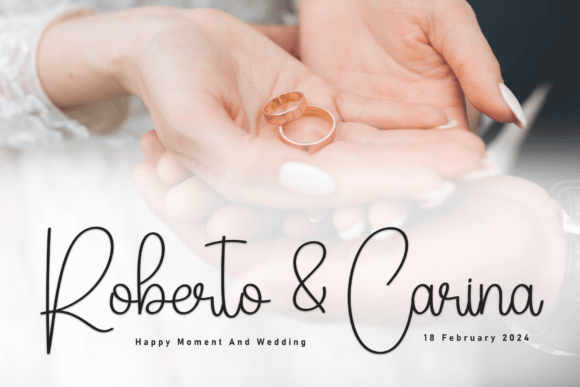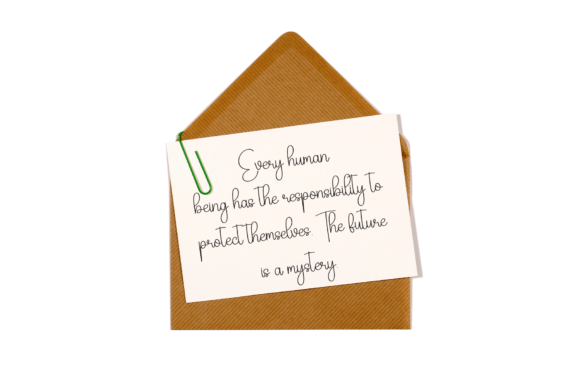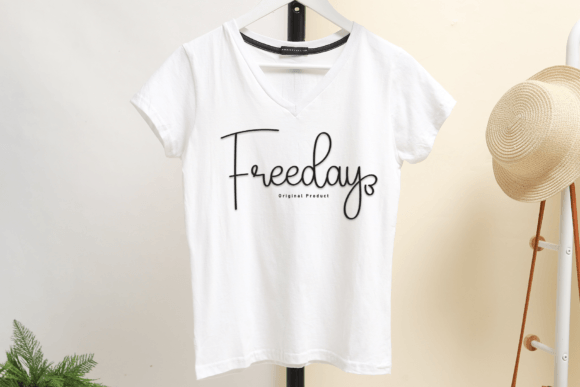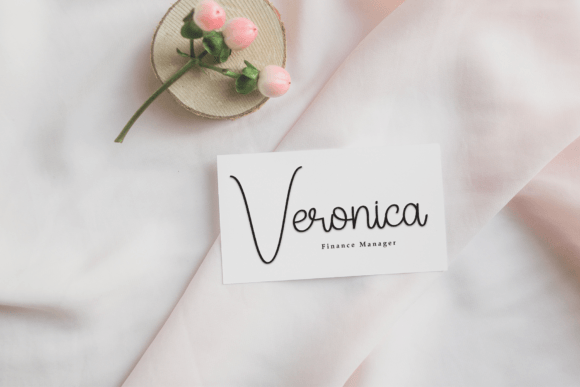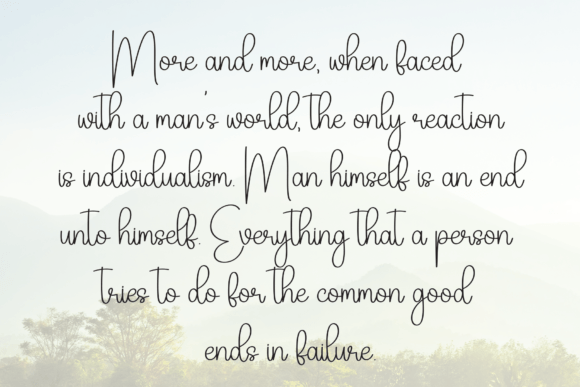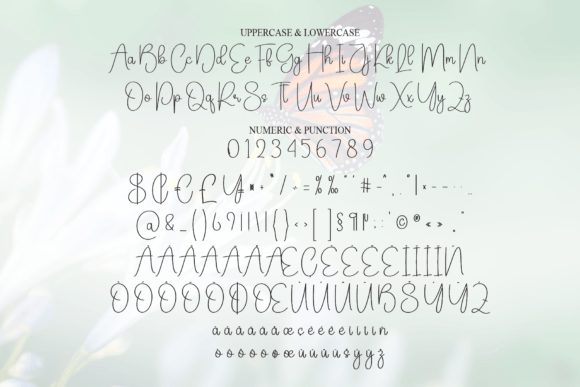
Introducing Butterfly Font: The Charming Handwritten Font for Cozy Designs
Are you looking for a font that can add a touch of warmth and personality to your design projects? Look no further than Butterfly Font, a charming handwritten font that radiates a cozy and inviting vibe. With its playful yet elegant strokes, Butterfly Font is perfect for designers and crafters who want to create delightful and personal designs.
The Characteristics of Butterfly Font
Butterfly Font is a handwritten font that boasts a unique and charming personality. Its strokes are playful and elegant, making it perfect for a variety of design projects. The font features:
- Playful strokes: Butterfly Font has a playful and carefree feel to it, making it perfect for designs that require a lighthearted touch.
- Elegant flair: Despite its playful nature, Butterfly Font also has an elegant side, making it suitable for more formal designs.
- Cozy vibe: The font has a warm and inviting feel to it, making it perfect for designs that require a cozy and intimate touch.
Uses for Butterfly Font
Butterfly Font is a versatile font that can be used for a variety of design projects, including:
- Greeting cards: Add a personal touch to your greeting cards with Butterfly Font’s charming and playful strokes.
- Invitations: Make your invitations stand out with Butterfly Font’s elegant and sophisticated feel.
- Branding materials: Use Butterfly Font to add a touch of warmth and personality to your branding materials, such as logos and packaging.
- Digital crafts: Butterfly Font is perfect for digital crafters who want to create unique and personalized digital products, such as printable art and planners.
Why Choose Butterfly Font?
There are many fonts available that offer a similar feel to Butterfly Font, but here are a few reasons why Butterfly Font stands out:
- Unique personality: Butterfly Font has a unique and charming personality that sets it apart from other fonts.
- High-quality design: The font is designed with high-quality craftsmanship, ensuring that it looks great in any design project.
- Easy to read: Despite its playful nature, Butterfly Font is easy to read, making it perfect for designs that require a lot of text.
Tips for Using Butterfly Font
Here are a few tips for using Butterfly Font in your design projects:
- Pair with other fonts: Butterfly Font pairs well with other fonts, such as sans-serif fonts and script fonts.
- Use for headings and titles: Butterfly Font is perfect for headings and titles, where its playful and elegant strokes can shine.
- Experiment with colors: Butterfly Font looks great in a variety of colors, so don’t be afraid to experiment and find the perfect color for your design.